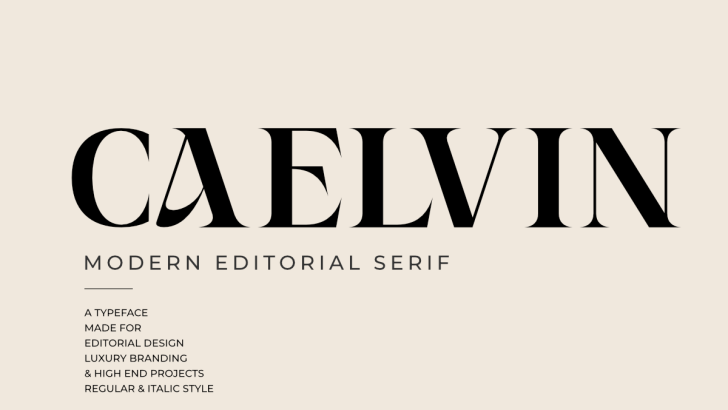
Modern Serif Fonts: 20 Elegant Typefaces for Branding in 2026
Modern serif fonts continue to shape the visual identity of luxury brands, fashion labels, beauty companies, and creative businesses. Their refined details and timeless appeal make them one of the most popular typography choices for professional branding.
Whether you’re designing a logo, creating premium packaging, or building an editorial website, the right modern serif font can instantly elevate your project.
In this guide, we’ll explore the best modern serif fonts for branding in 2026 and explain why they remain a favorite among designers.
Why Modern Serif Fonts Are Popular
Modern serif fonts combine the elegance of traditional typography with clean, contemporary styling.
They help brands communicate:
- Luxury
- Confidence
- Professionalism
- Creativity
- Timeless style
This versatility makes them suitable for businesses across many industries.
What Defines a Modern Serif Font?
Unlike traditional serif typefaces, modern serif fonts often feature:
High Contrast
Thin and thick strokes create a sophisticated appearance.
Clean Proportions
Balanced letterforms improve readability while maintaining elegance.
Contemporary Details
Modern serif fonts feel fresh without losing their classic character.
Versatile Design
They work beautifully across print and digital media.
Best Uses for Modern Serif Fonts
Modern serif fonts are widely used for:
- Luxury logo design
- Fashion branding
- Beauty packaging
- Editorial magazines
- Boutique websites
- Product labels
- Wedding stationery
- Social media graphics
Popular Modern Serif Styles
Editorial Serif
Inspired by fashion magazines and luxury publications.
High-Contrast Serif
Perfect for premium branding and elegant headlines.
Minimal Serif
Simple, clean typography for modern businesses.
Display Serif
Ideal for logos and bold visual identities.
Typography Trends in 2026
Editorial Branding
Magazine-inspired typography continues to dominate.
Quiet Luxury
Elegant serif fonts remain a defining feature of premium brands.
Minimalist Design
Simple layouts paired with refined typography create lasting impressions.
Timeless Branding
Businesses increasingly choose fonts that remain relevant for years.
Common Mistakes
Avoid these typography mistakes:
- Choosing overly decorative serif fonts
- Ignoring readability
- Using inconsistent font pairings
- Following temporary trends
- Applying display fonts to long paragraphs
How to Choose the Right Modern Serif Font
Before selecting a font, consider:
- Your target audience
- Brand personality
- Print and digital applications
- Long-term usability
A carefully chosen typeface will strengthen your visual identity across every platform.
Final Thoughts
Modern serif fonts continue to define premium branding in 2026. Their combination of elegance, readability, and versatility makes them an excellent choice for logos, packaging, editorial design, and luxury marketing.
Whether you’re launching a new business or refreshing an existing brand, investing in a high-quality modern serif font can help create a timeless and professional identity.